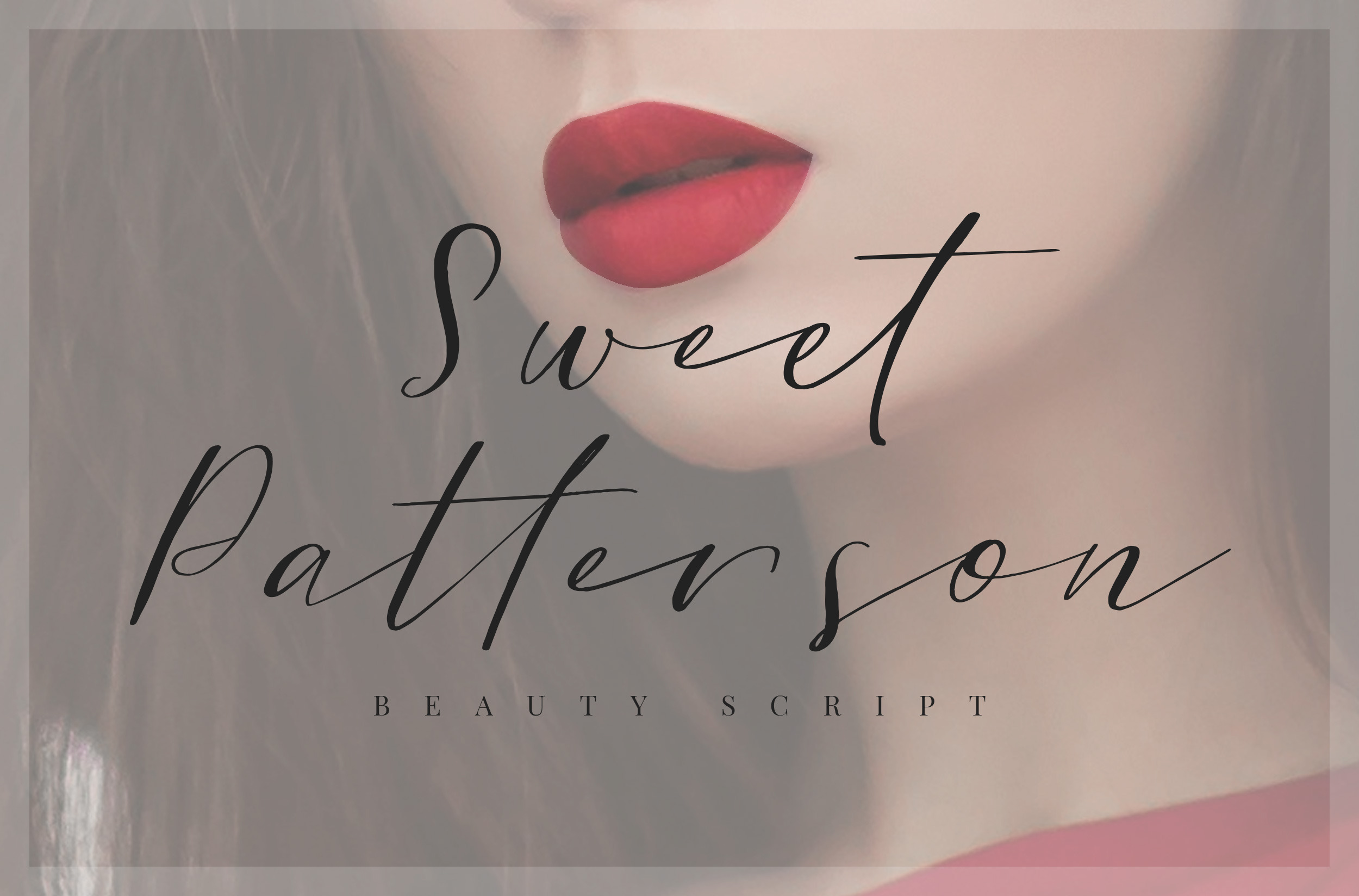
Sweet Patterson - Beauty Font
Sweet Patterson, a beautiful and lovely modern calligraphy script font with perfectly imperfect written by the hand. Perfectly fit for branding, logo, wedding things, greeting cards, fashion, anytime you need to pour some love.
Included Uppercase, Lowercase, Numbers & Punctuations, Multilanguage Support, Stylistic Alternates for every lowercase letters, and some nice ligatures to aim the handwriting feels.